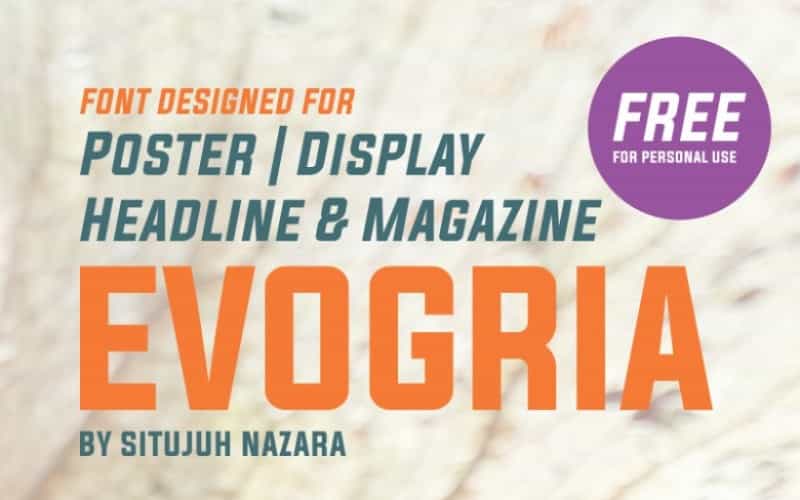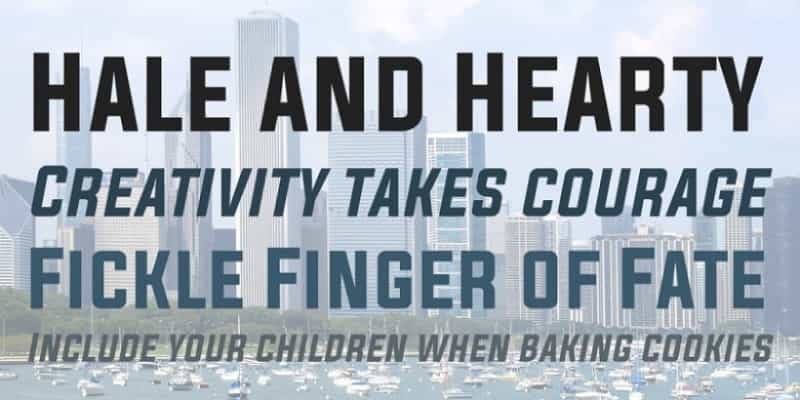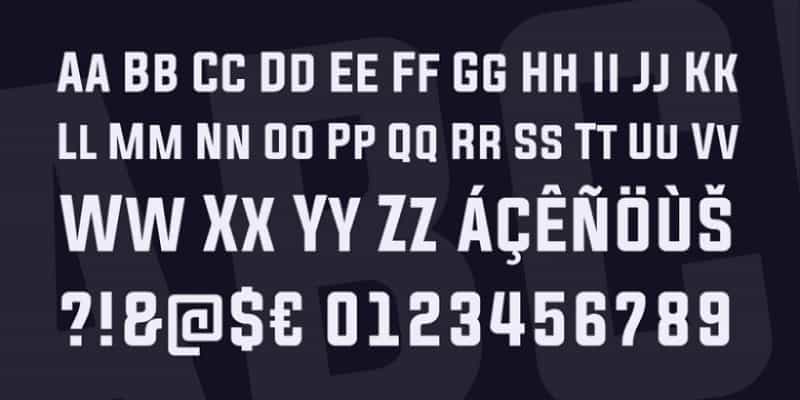
Evogria is a high quality and beautiful sans serif font by 7NTypes and it is free to download and use in private projects. The free version has both the capital and the small alphabets and some symbols as well. Evogria Font was developed as a modified font for use in headlines for posters, displays, magazines and other such materials.